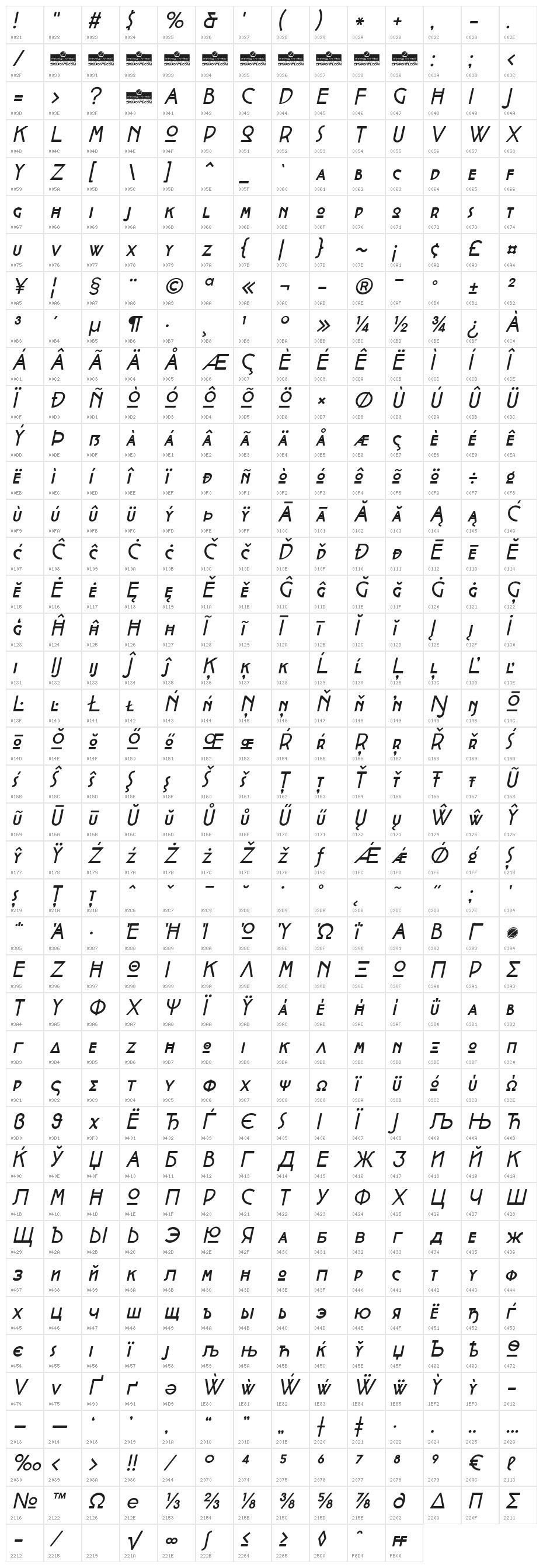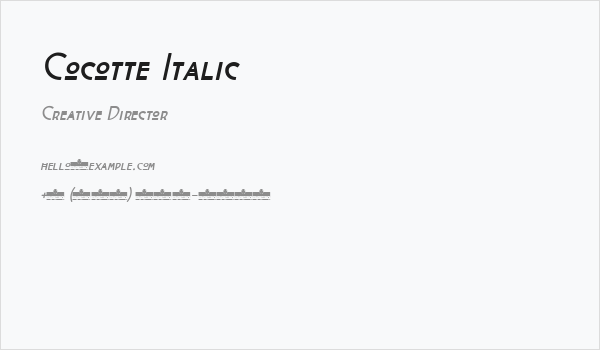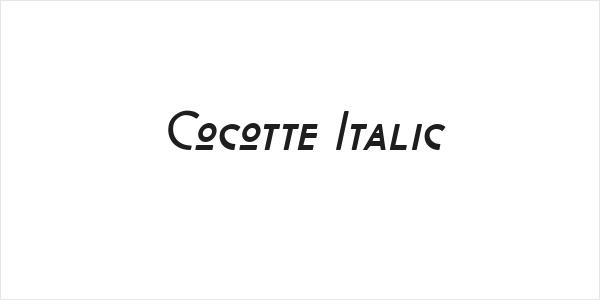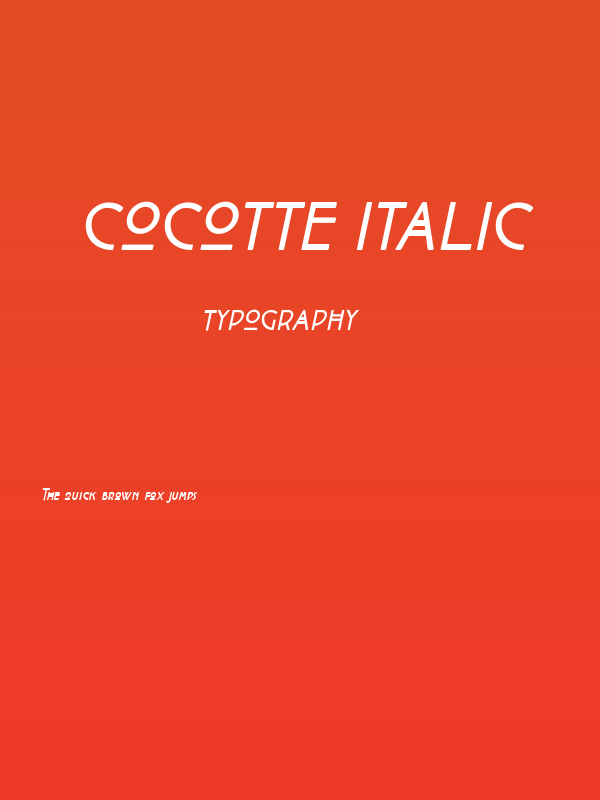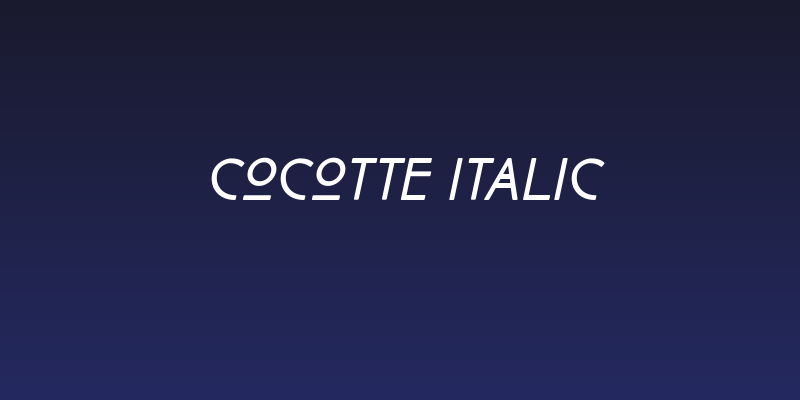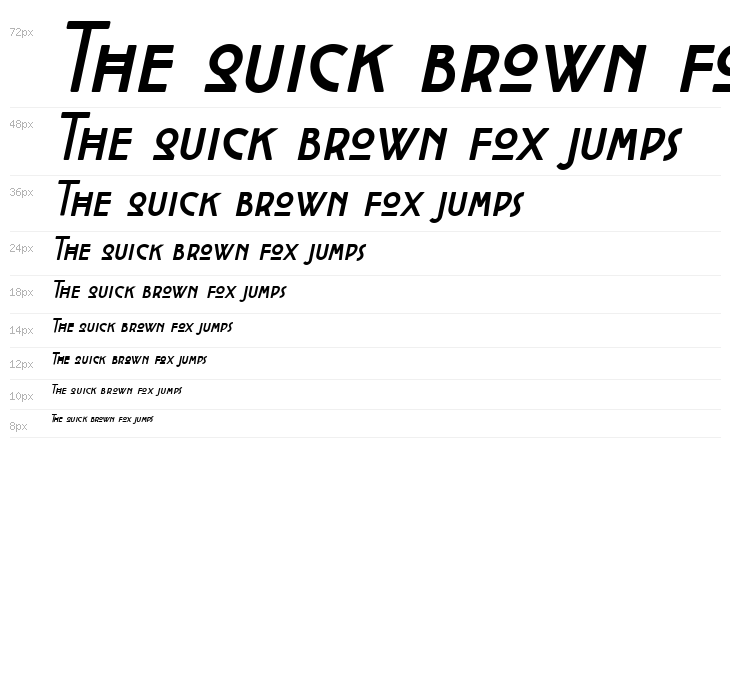
Cocotte Italic Font
Cocotte Italic Description
This font features a sleek, modern design with a distinct italic slant, giving it a dynamic and forward-moving appearance. The characters are crafted with clean lines and a geometric structure, providing a sense of precision and clarity. The uppercase and lowercase letters maintain a consistent style, with slightly condensed proportions that enhance readability. The numerals and special characters are designed to match the overall aesthetic, ensuring a cohesive look across all text elements. This font's contemporary style makes it suitable for a variety of design applications.